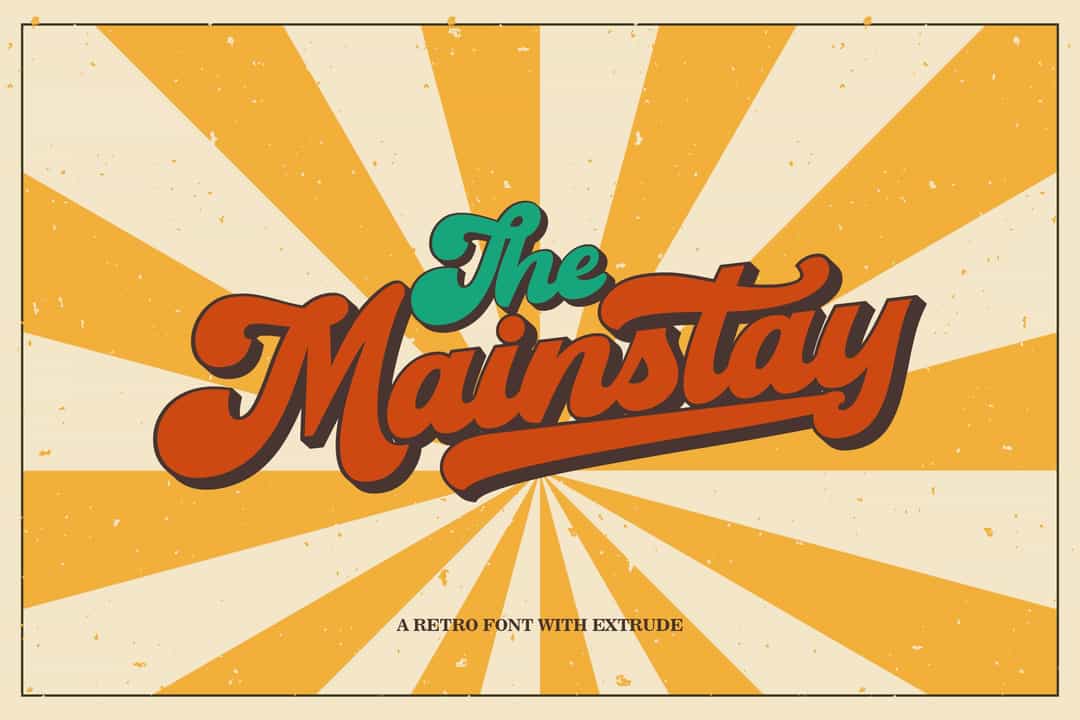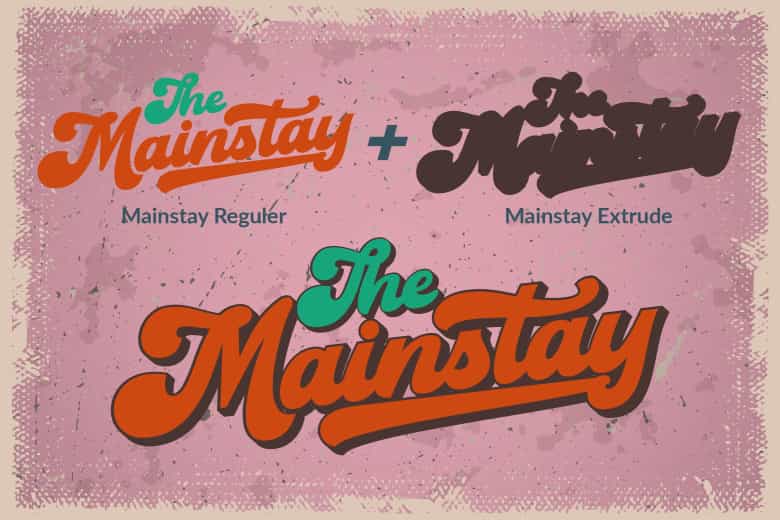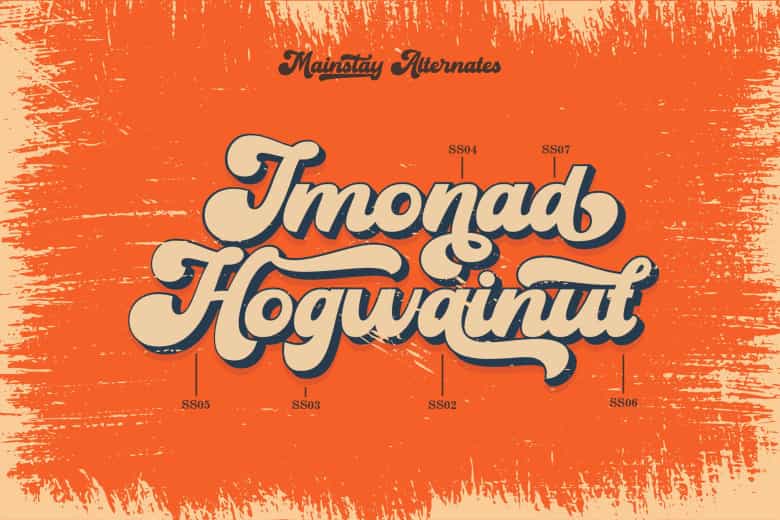
The Mainstay font is an impressive retro-styled handwritten typeface. This font can be described as both powerful and lively; adding a great deal of nostalgia into any design project.